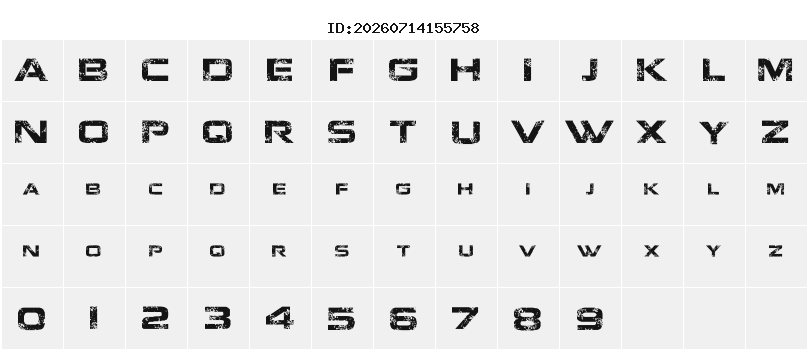
Jacinto Sans Preview
• Font Name: Jacinto Sans
• Full Font Name: Jacinto Sans
About Jacinto Sans.ttf
Jacinto Sans.ttf is a modern, elegant sans-serif font designed for ultimate readability and visual harmony. Perfect for branding, headlines, web design, and print materials.